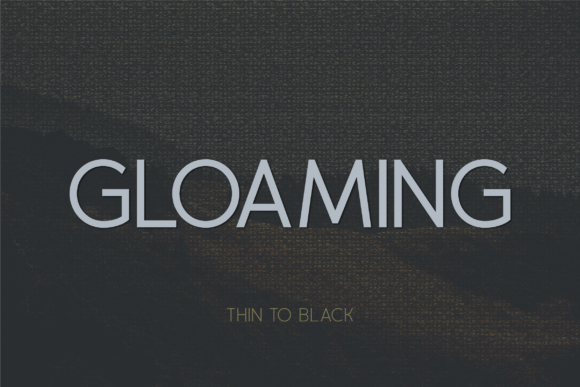
Introducing Gloaming Font: A Modern and Versatile Typeface for Every Design Need
In the world of typography, a font can make all the difference in the success of a design project. A well-crafted font can elevate a brand’s identity, convey its message, and leave a lasting impression on its audience. This is where Gloaming Font comes in – a modern and versatile font family that seamlessly blends clean geometric forms with subtle sophistication.
A Harmonious Balance of Style and Functionality
Gloaming Font is characterized by its precise letterforms and contemporary aesthetic, making it an ideal choice for designers and crafters looking for a typeface that can adapt to various design applications. The font’s style is a perfect harmony of sharp lines and gentle curves, resulting in a refined and impactful look that stands out in any design.
A Family of Five Fonts for Diverse Design Needs
One of the key features of Gloaming Font is its comprehensive family of five fonts, each designed to cater to specific design requirements. The family includes:
- Gloaming Black: Bold and impactful, perfect for commanding headlines that demand attention.
- Gloaming Bold: Strong and persuasive, ideal for key messages that need to make a statement.
- Gloaming Regular: A balanced and versatile mid-weight font suitable for diverse applications, from body text to captions.
- Gloaming Light: Subtle and elegant, perfect for refined designs that require a touch of sophistication.
- Gloaming Thin: Delicate and sophisticated, ideal for adding a minimalist touch to designs.
Endless Design Possibilities with Gloaming Font
With Gloaming Font, designers and crafters can explore a wide range of creative possibilities. Whether you’re working on a branding project, a website design, or a print material, this versatile font family can adapt to your needs. The different font weights offer a range of options for creating visual hierarchy, from bold headlines to subtle body text.
Why Choose Gloaming Font?
So, what sets Gloaming Font apart from other font families? Here are a few reasons why designers and crafters should consider adding Gloaming to their typography arsenal:
- Clean and Geometric Forms: Gloaming’s clean lines and geometric shapes make it perfect for modern designs that require a touch of sophistication.
- Adaptable Style: The font’s versatile style allows it to adapt to various design applications, from digital to print.
- High-Quality Typography: Gloaming Font is designed with precision and attention to detail, ensuring high-quality typography that elevates any design.
- Easy to Read: The font’s clear and legible letterforms make it easy to read, even at small sizes.
Tips for Using Gloaming Font in Your Designs
To get the most out of Gloaming Font, here are some tips for incorporating it into your designs:
- Experiment with Font Weights: Try combining different font weights to create visual hierarchy and add depth to your design.
- Pair with Other Fonts: Gloaming Font pairs well with other sans-serif fonts, so don’t be afraid to experiment with font combinations.
- Use for Headlines and Body Text: Gloaming Font is suitable for both headlines and body text, making it a great choice for designs that require a cohesive look.
In conclusion, Gloaming Font is a modern and versatile font family that offers a range of creative possibilities for designers and crafters. With its clean geometric forms, adaptable style, and high-quality typography, Gloaming is an excellent choice for any design project. Whether you’re working on a branding project, website design, or print material, Gloaming Font is sure to elevate your design and leave a lasting impression on your audience.